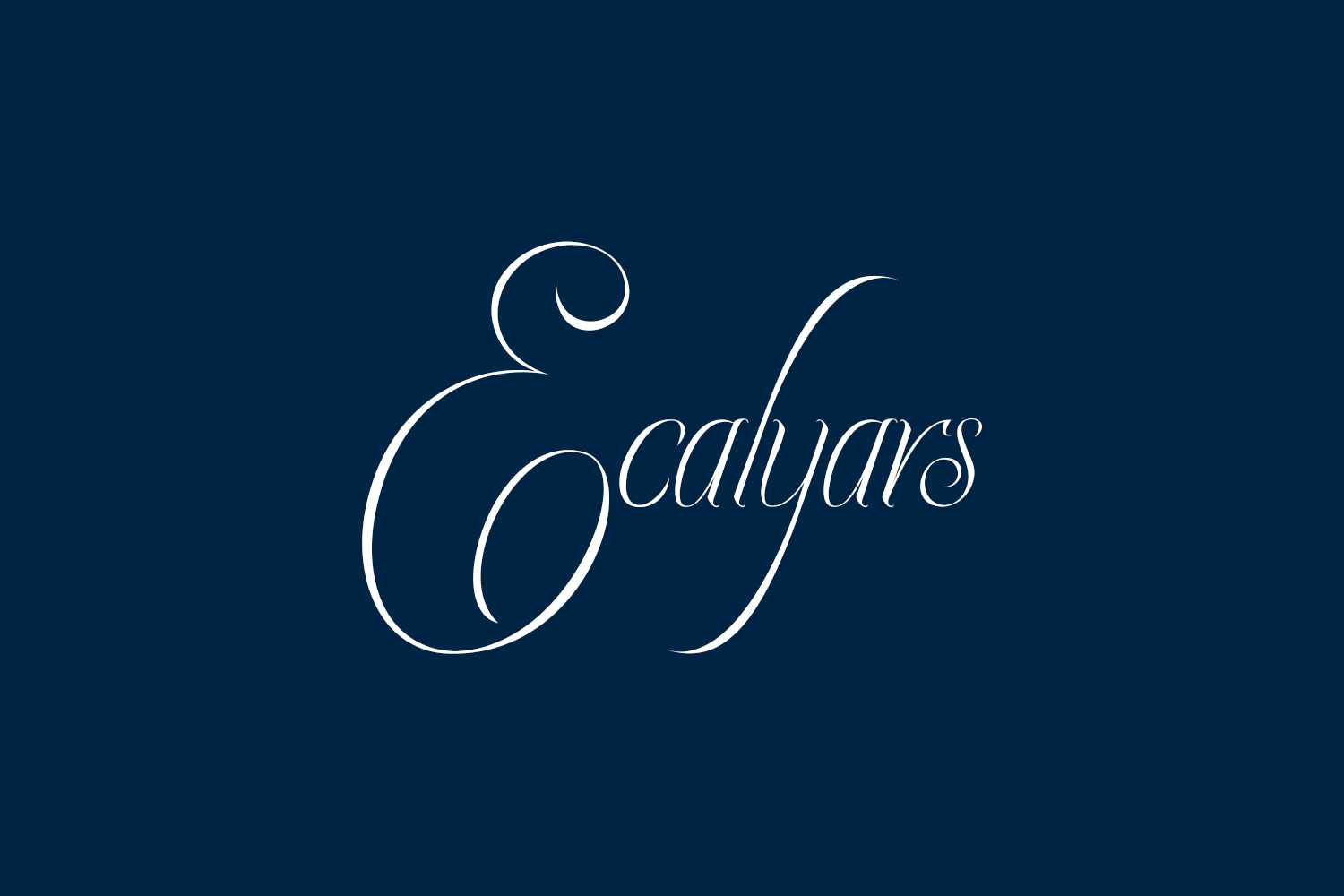
Ecalyars Free Font is a beautiful and elegant script that updates classic calligraphy with a fancy feel. Use it to take any craft idea to the next level. Georgina Script Free Font was designed by Ibram Syah and is free for personal use only. Please purchase the full version for commercial use.
Designed by Ibram Syah